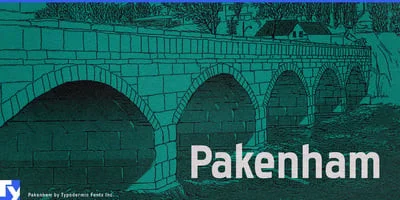
Pakenham Font
Pakenham Font is perfect for heritage brands, traditional institutions, classic publications, historical documents, academic materials, established businesses, and distinguished corporate communications. This refined typeface brings timeless elegance and institutional authority to prestigious design projects.
Pakenham Font is exciting because it embodies classic sophistication with its distinguished letterforms that convey heritage and reliability while maintaining contemporary functionality and exceptional readability across traditional and modern applications.
The Pakenham Font family includes multiple weights from Light to Bold, along with corresponding italic styles that preserve classical proportions. This distinguished collection provides designers with elegant options for creating authoritative and memorable institutional brand experiences.
Pakenham Font offers designers access to a masterfully crafted typeface that represents the pinnacle of traditional typography excellence and institutional design. This distinguished font features carefully engineered letterforms with classical proportions and refined details that create immediate associations with heritage, authority, and established credibility. The typeface showcases timeless elegance and balanced character relationships that enhance professional communications while maintaining strong institutional presence. Its prestigious character makes it particularly suitable for established organizations and heritage brands that require typography capable of conveying tradition, reliability, and distinguished service. Pakenham Font delivers consistent performance across various traditional and contemporary applications, from formal documentation to modern branding initiatives. The font's classical heritage and professional refinement ensure superior results that enhance institutional credibility and communication effectiveness while providing audiences with a refined and trustworthy typographic experience that reflects quality and established excellence.